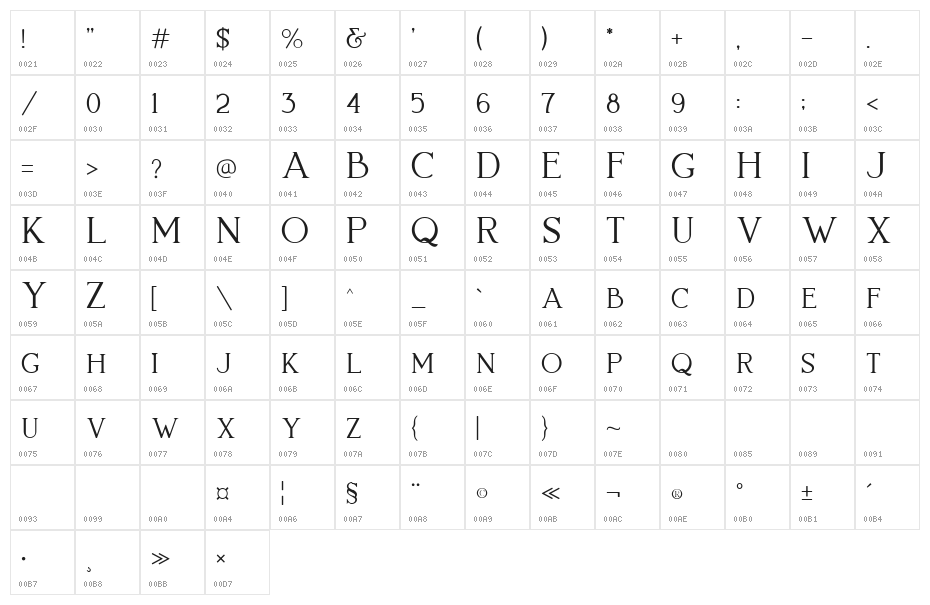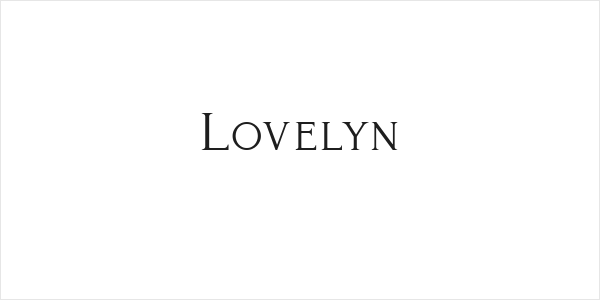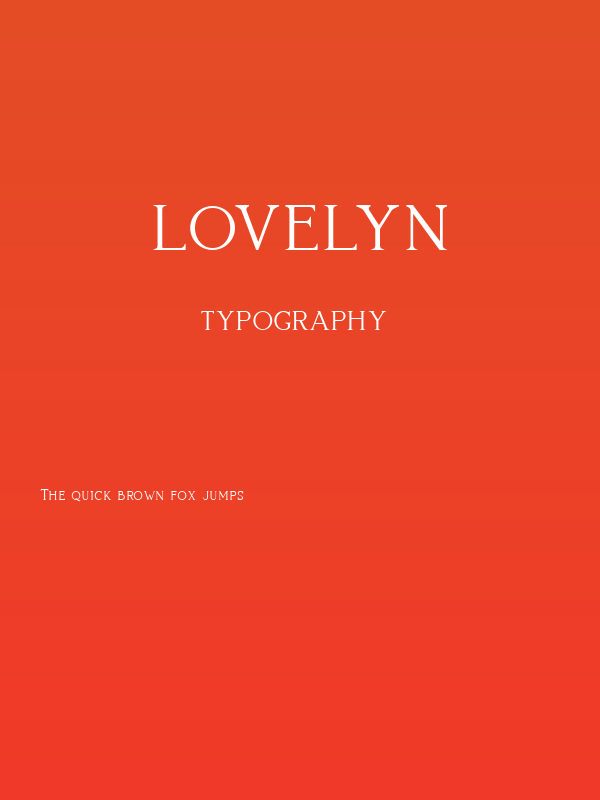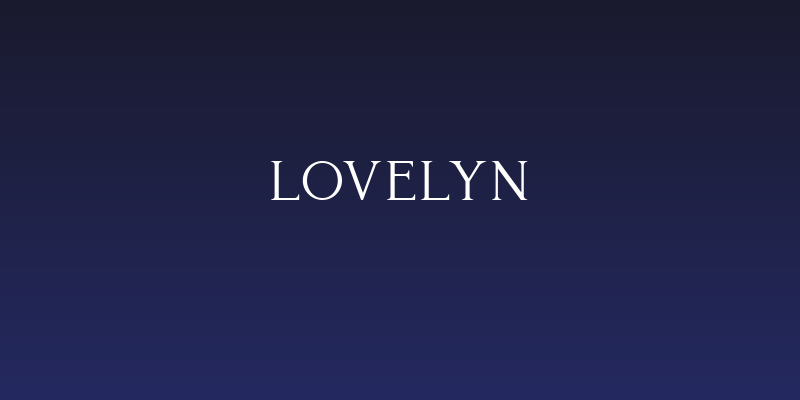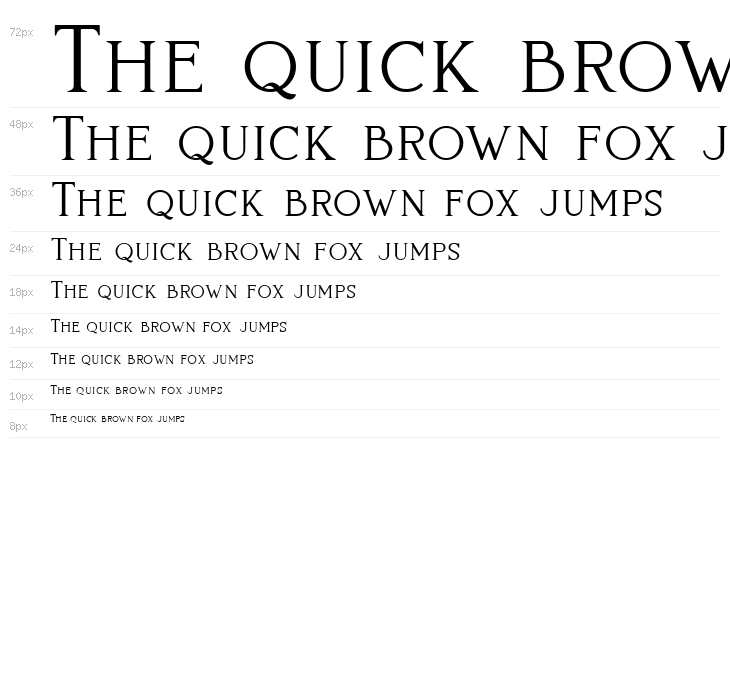
Lovelyn Font
Lovelyn Description
This font exhibits a classic serif style with elegant, thin strokes and subtle curves, giving it a timeless and sophisticated appearance. The characters are well-proportioned, with a slight contrast in stroke thickness that adds to its readability and charm. The uppercase letters are stately and formal, while the lowercase letters maintain a graceful flow. The numerals are clear and distinct, complementing the overall design. Special characters are crafted with precision, enhancing the font's versatility. This font is ideal for projects that require a touch of elegance and tradition.
| Proposed Projects | Ideal for book covers, formal invitations, editorial layouts, and branding that requires a classic touch. |